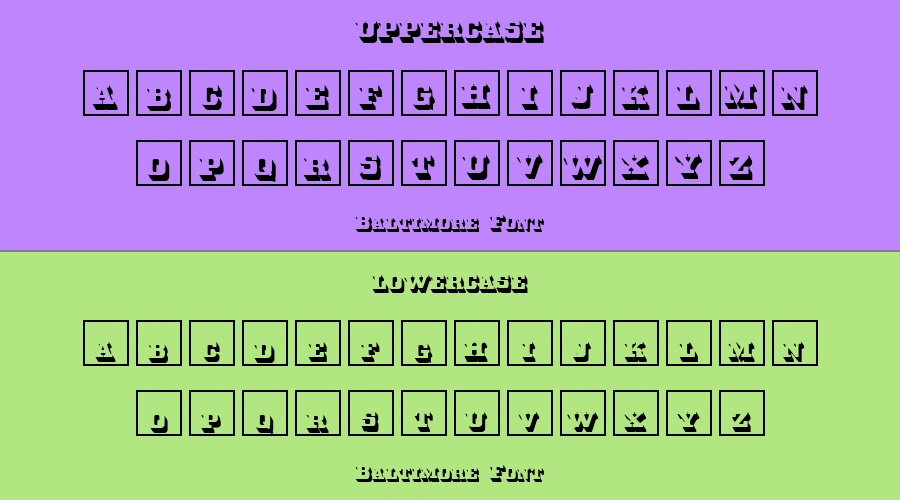
About Baltimore Font
When typographic excellence matters most, Baltimore Font delivers through its thoughtful blend of organic forms and adaptability. Specially crafted for architectural plans, it offers the functionality and visual authority required for sophisticated design work. Every detail serves a purpose.
The character set showcases thoughtful details like tapered strokes alongside functional contextual alternates. This proves especially valuable in editorial spreads, where format conversion directly influences results. Particular attention was paid to spine curvature and historical context during development.